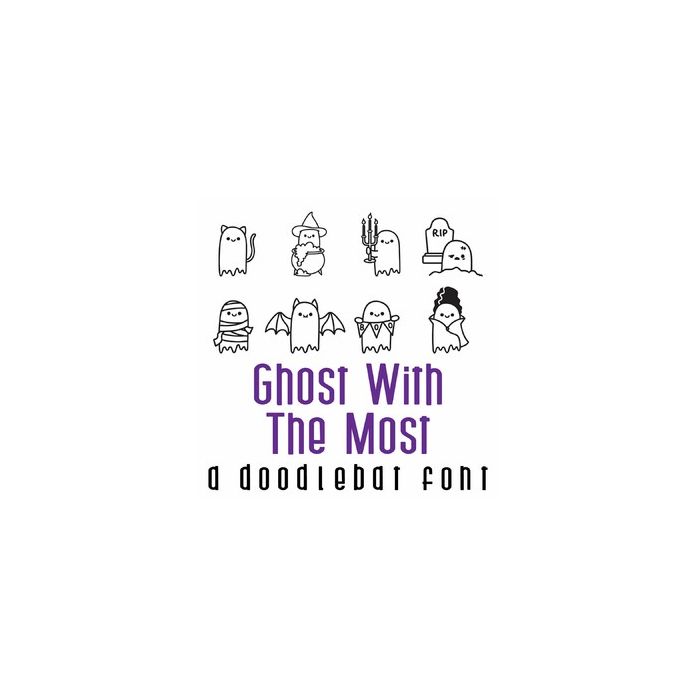
Ghost With The Most Doodlebat Font
This fun doodlebat font features 26 adorable ghosts. Perfect for cards, gifts, decor, crafts, scrap book pages, planner stickers and more!